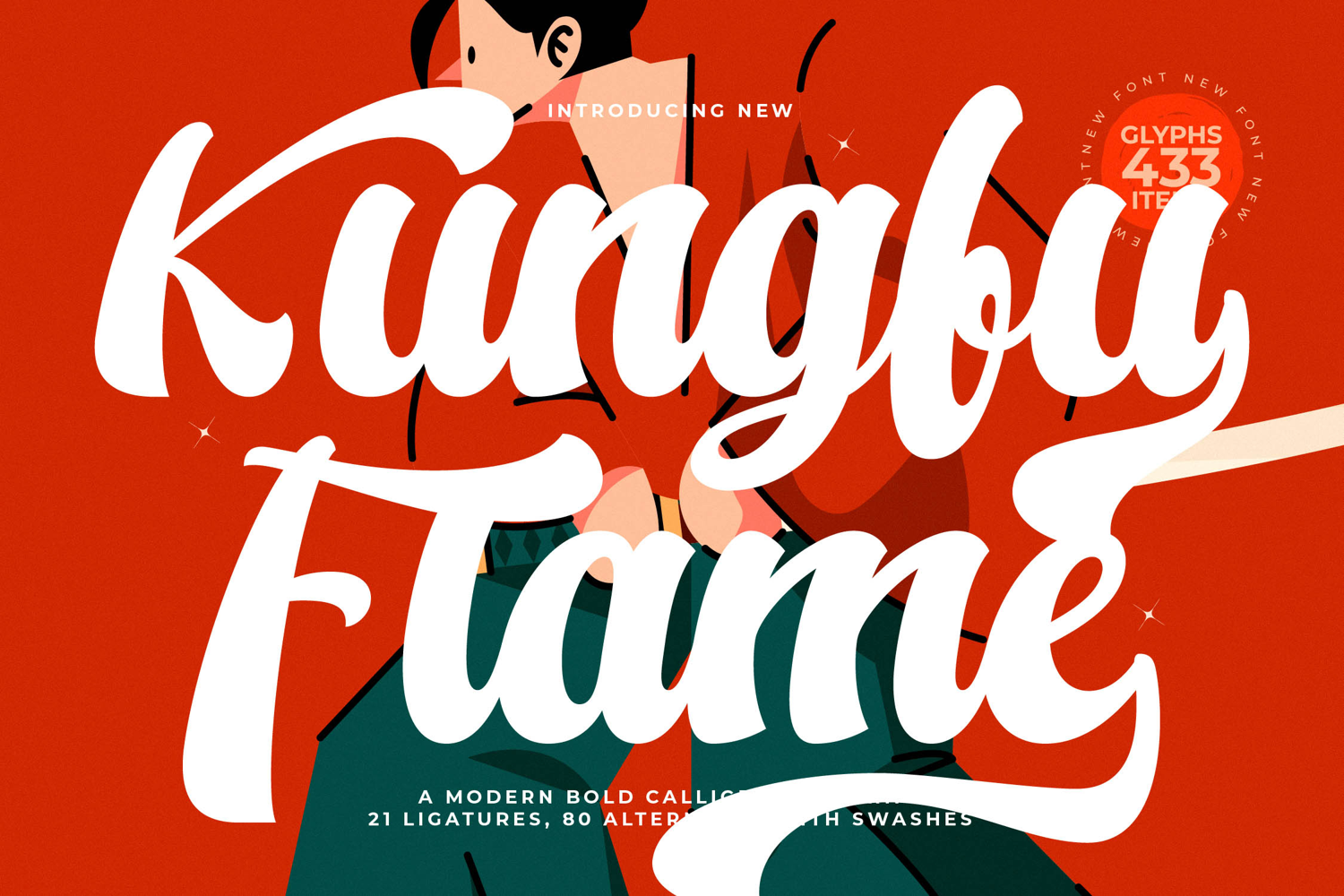
Kungfu Flame - Modern Bold Calligraphy
Unleash unparalleled creativity with Font Kungfu Flame - Modern Bold Calligraphy Script. This isn't merely a typeface; it's a dynamic statement, seamlessly blending the elegance of classic calligraphy with a contemporary, bold aesthetic. Its expressive design and fluid, high-contrast strokes command immediate attention, ensuring your message resonates with powerful energy and sophisticated style in any context.
Discover the depth of customization within Font Kungfu Flame - Modern Bold Calligraphy Script. Boasting an extensive array of 21 ligatures, 80 alternates, and elegant swashes, this font offers unparalleled flexibility to craft truly bespoke typography. These rich OpenType features allow designers to achieve an authentic, hand-crafted feel, ensuring every composition is uniquely impactful and visually captivating.
Expand your brand's reach and resonate with audiences worldwide. With its extensive multilingual support, Font Kungfu Flame - Modern Bold Calligraphy Script adapts seamlessly across global markets, making it incredibly versatile for international projects. This crucial feature ensures your message maintains its unique charm and professional elegance, transcending linguistic barriers with grace.
Elevate your visual storytelling across diverse mediums. Font Kungfu Flame - Modern Bold Calligraphy Script is perfect for creating impactful marketing campaigns, from sophisticated luxury branding and premium packaging design to captivating editorial layouts and expressive headlines. It is also an ideal choice for unique event invitations, distinctive product labeling, and memorable logo designs, guaranteeing an unforgettable impression.